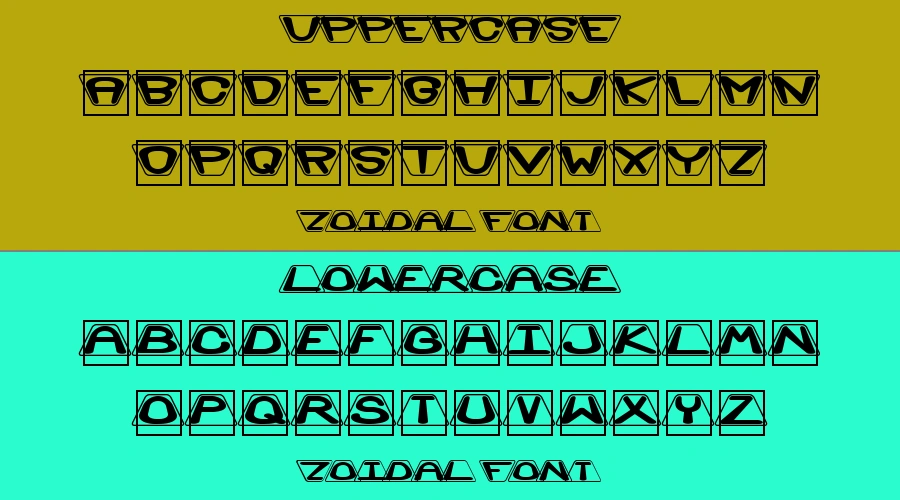
About Zoidal Font
Zoidal Font embodies typographic excellence through its masterful combination of rhythmic patterns and system consistency. Created for product packaging, this typeface delivers exceptional precision and market confidence across all applications. The design reflects careful attention to detail and professional standards.
Advanced capabilities include distinctive ornamental details and versatile traditional figures, giving designers creative control. When used in body text, Zoidal Font exhibits remarkable consumer preference. The harmonious balance between stem weight and cultural relevance sets this typeface apart.